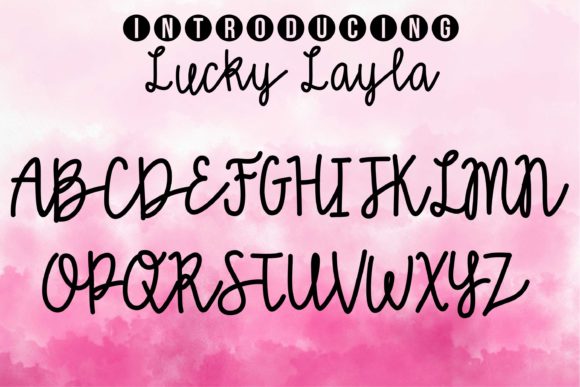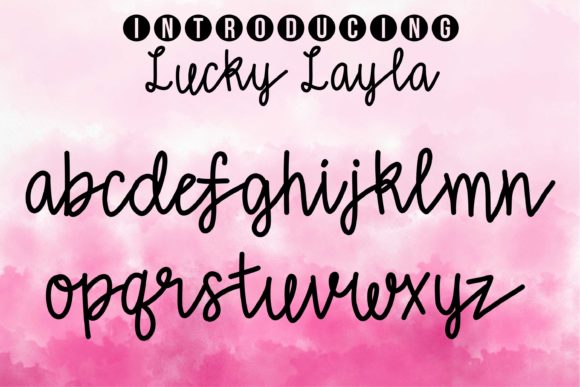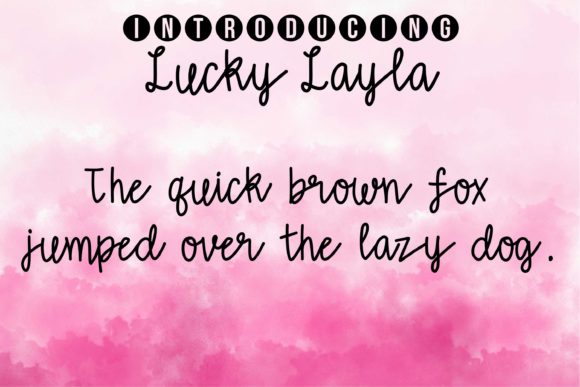
Lucky Layla Font
About Lucky Layla Font
Lucky Layla is a simple, yet fun handwritten font with an adorable style. It will turn any design idea into an eye-catcher!